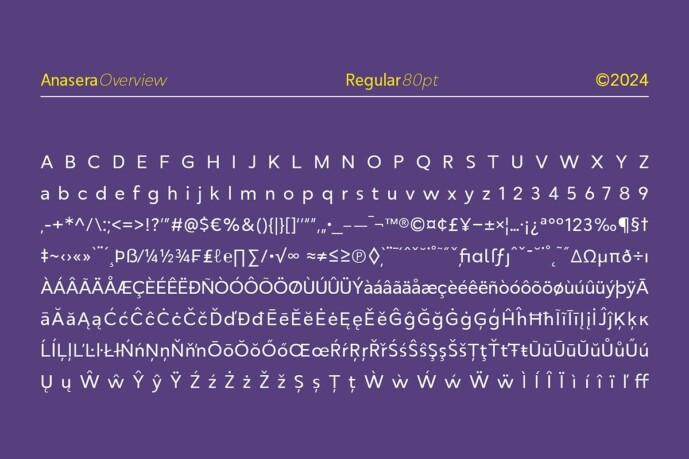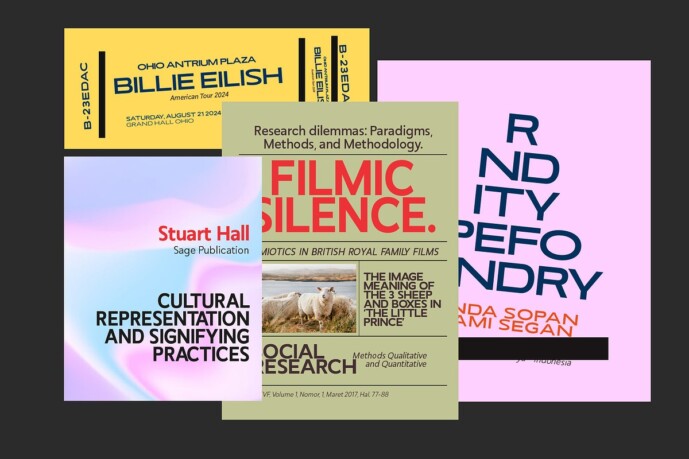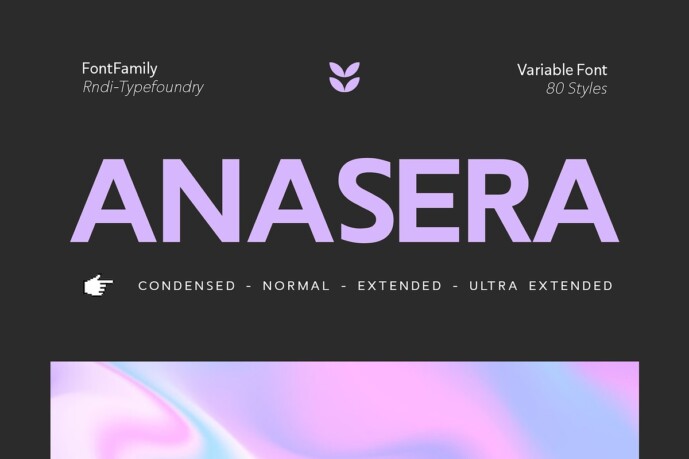
RNDI Anasera Font Family
Designer: RNDI Type Foundry
RNDI Anasera Font Family is a versatile font designed by Randi Ilhamsyah, featuring elegant and readable characteristics ideal for body text. This font seamlessly combines modern aesthetics with classic design elements, making it perfect for a wide range of applications in print and digital media.